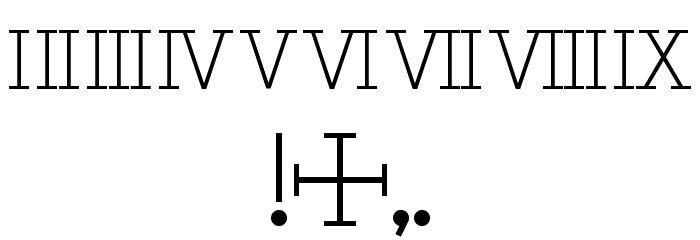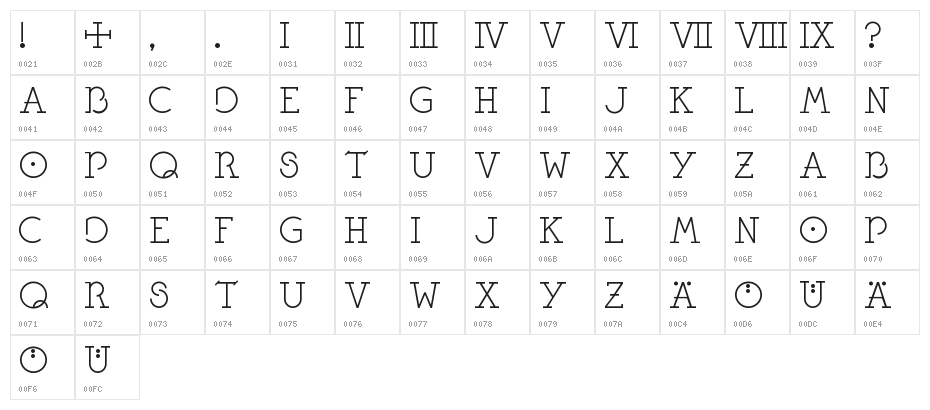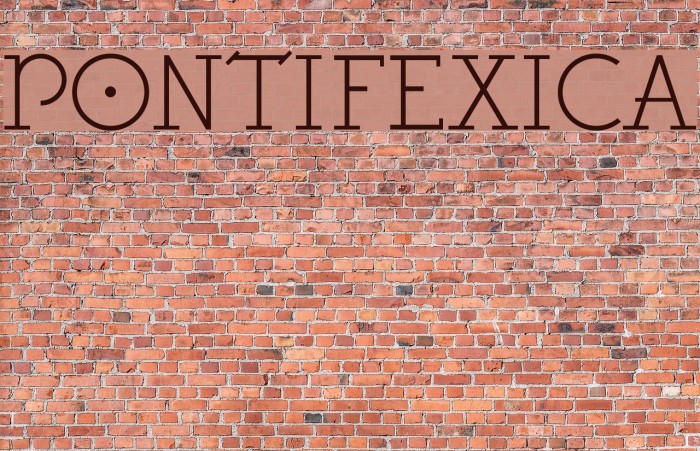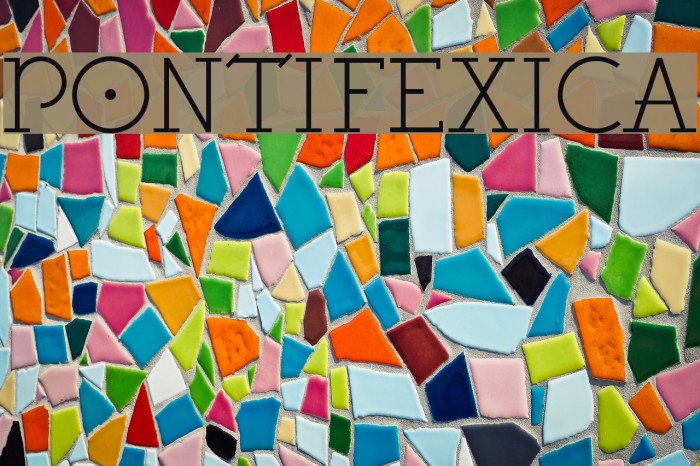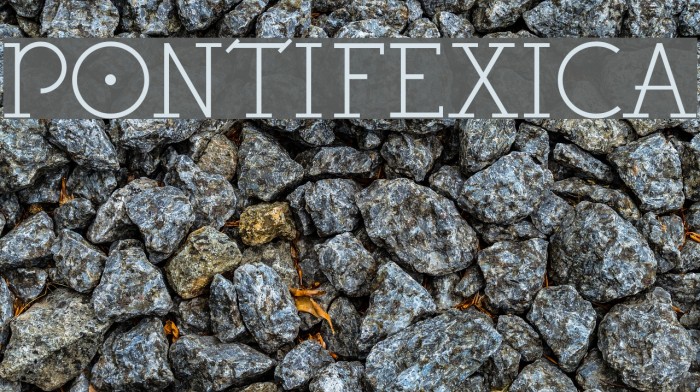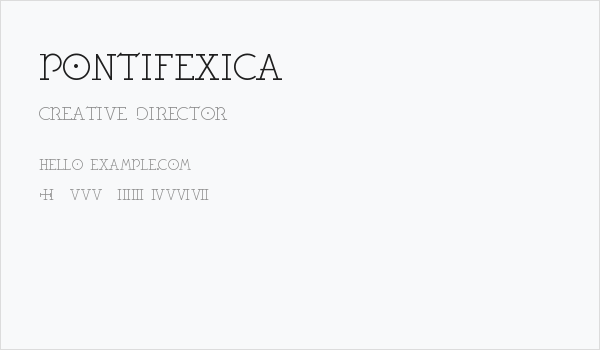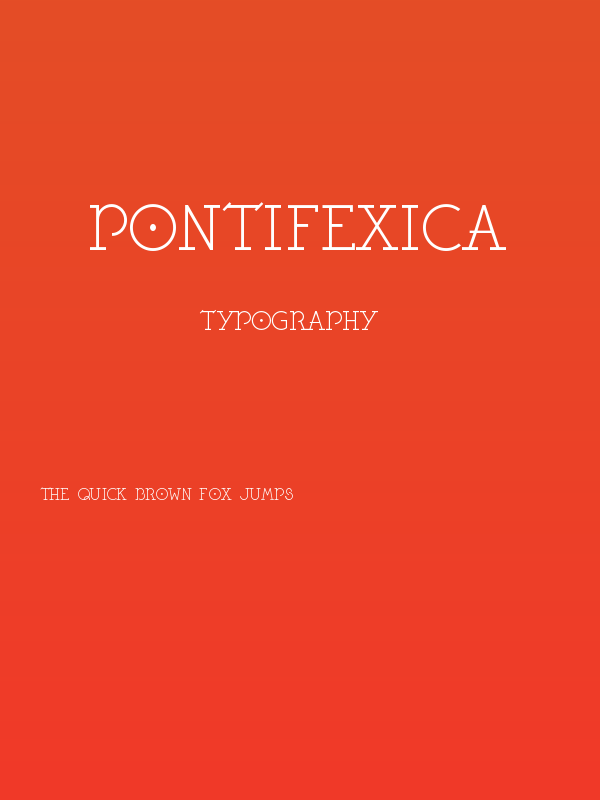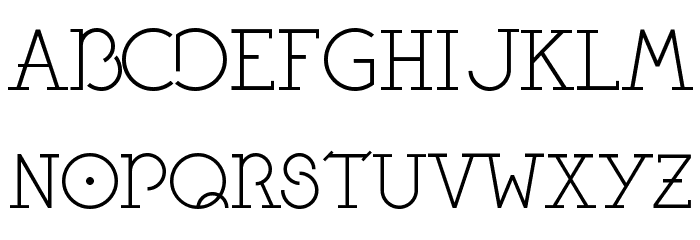
Pontifexica Font
Pontifexica Description
This font features a unique blend of classic and modern elements, characterized by its elegant and refined letterforms. The uppercase letters are distinct with a slight flair, while the lowercase letters maintain a consistent style that complements the overall aesthetic. The numerals are designed with a traditional touch, adding to the font's versatility. Special characters are thoughtfully crafted, enhancing the font's usability across various applications. The font's clean lines and balanced proportions make it suitable for both formal and contemporary designs.